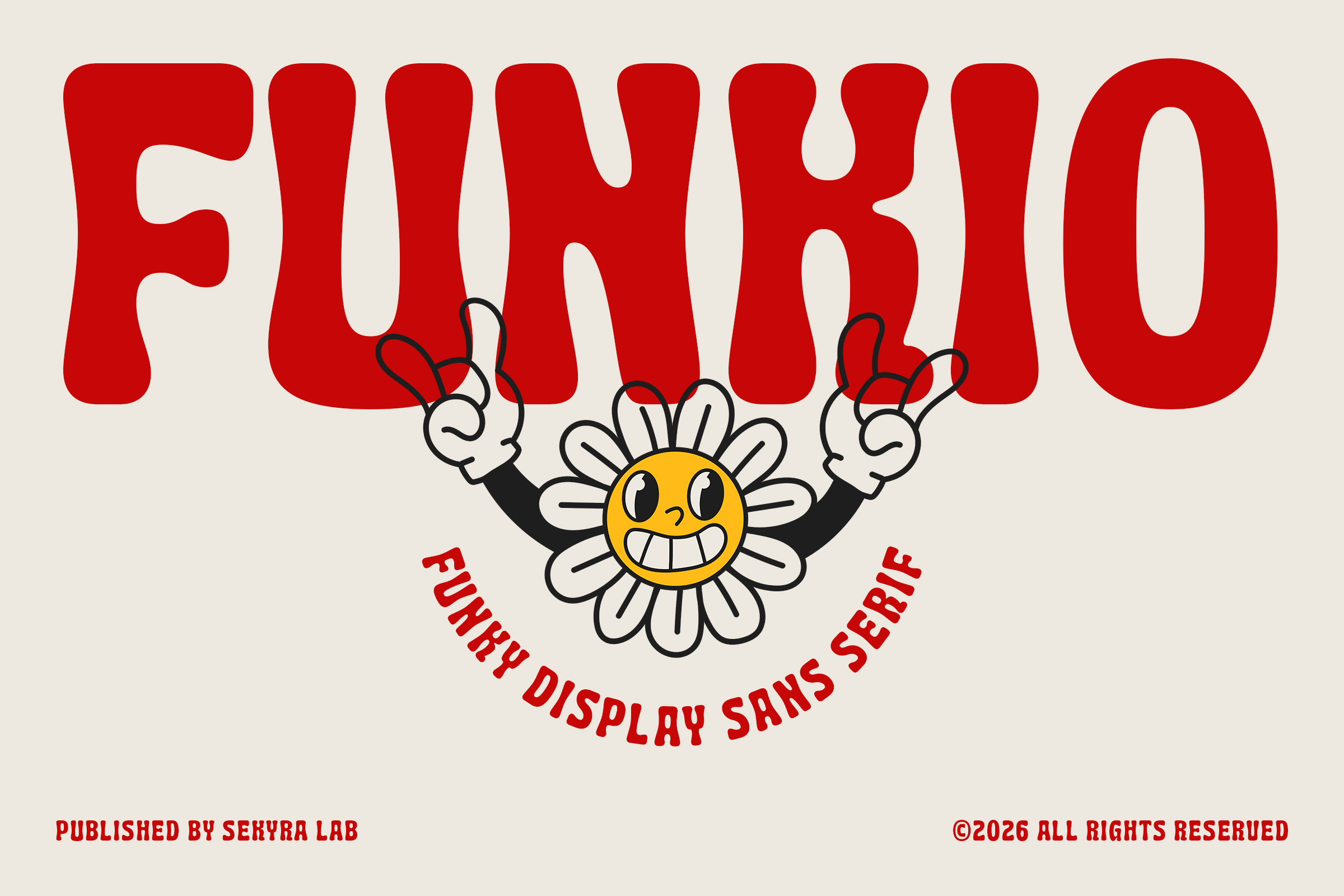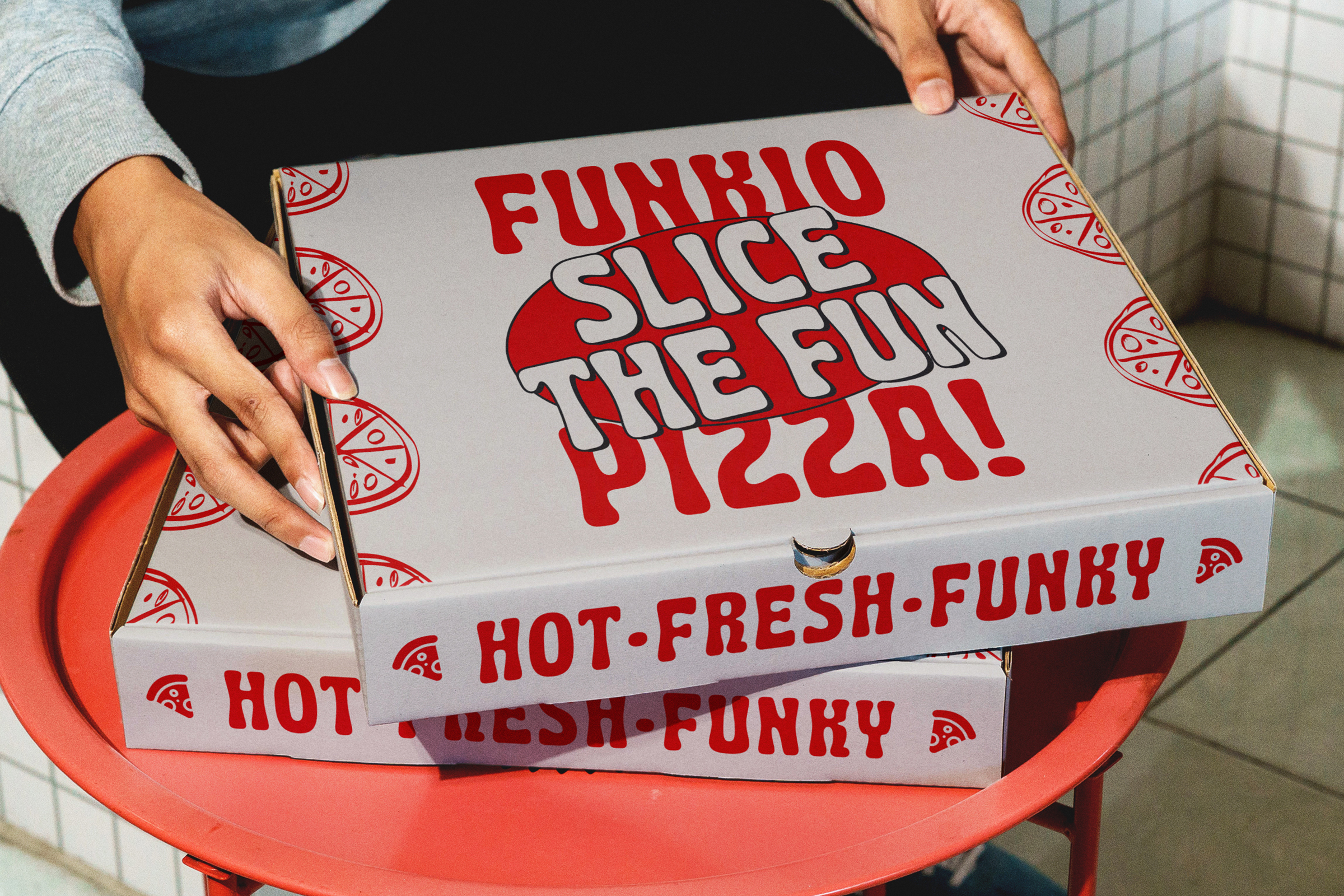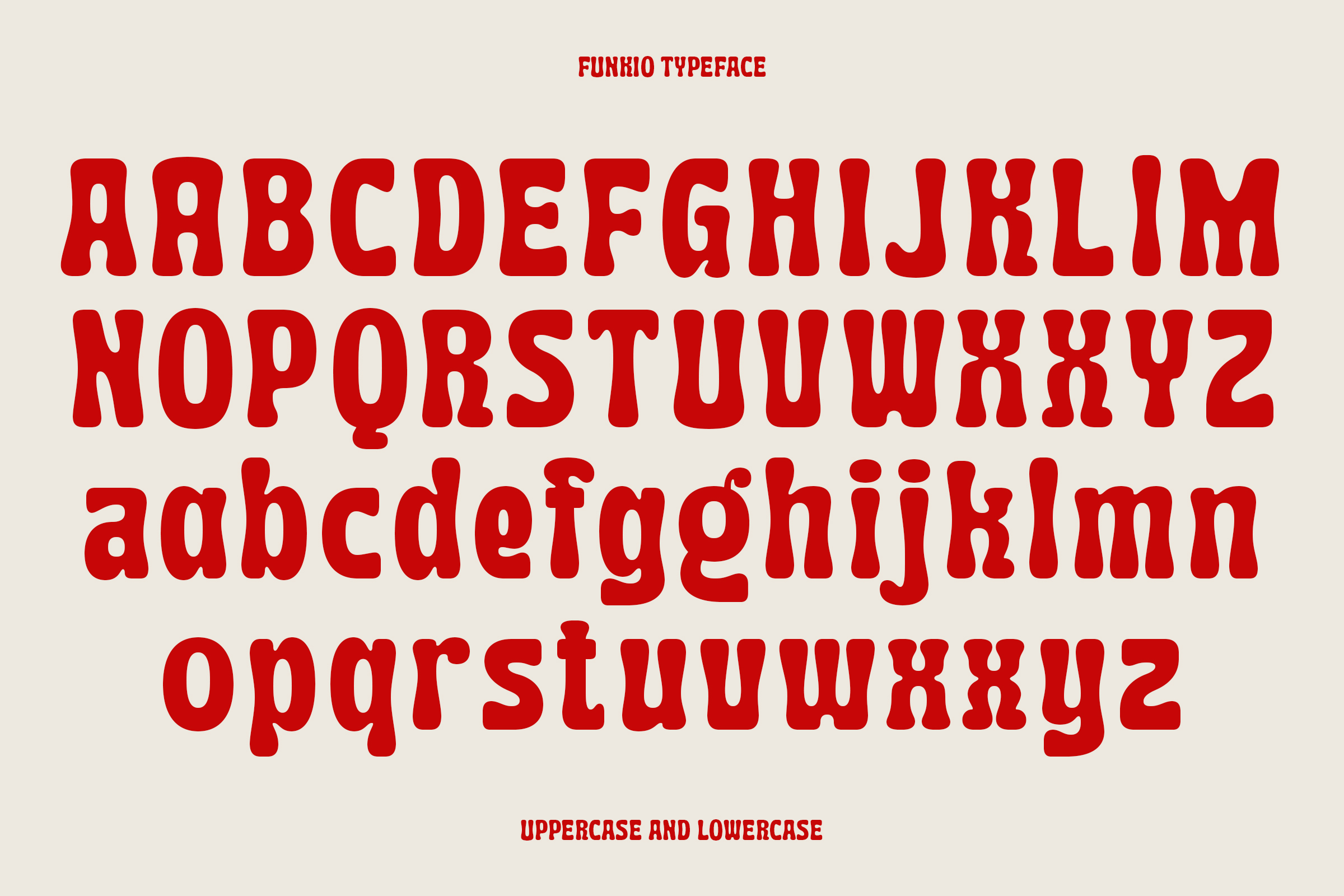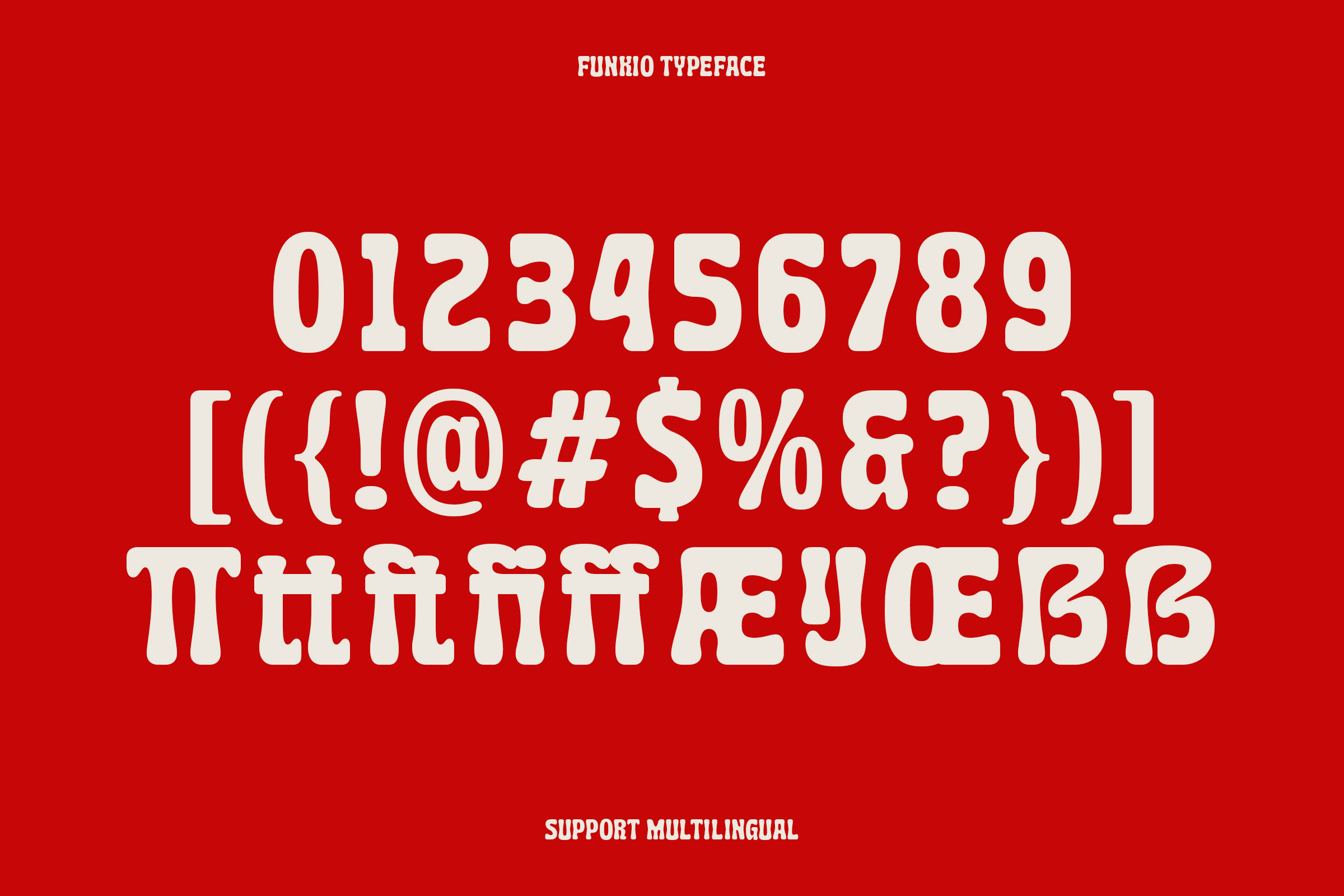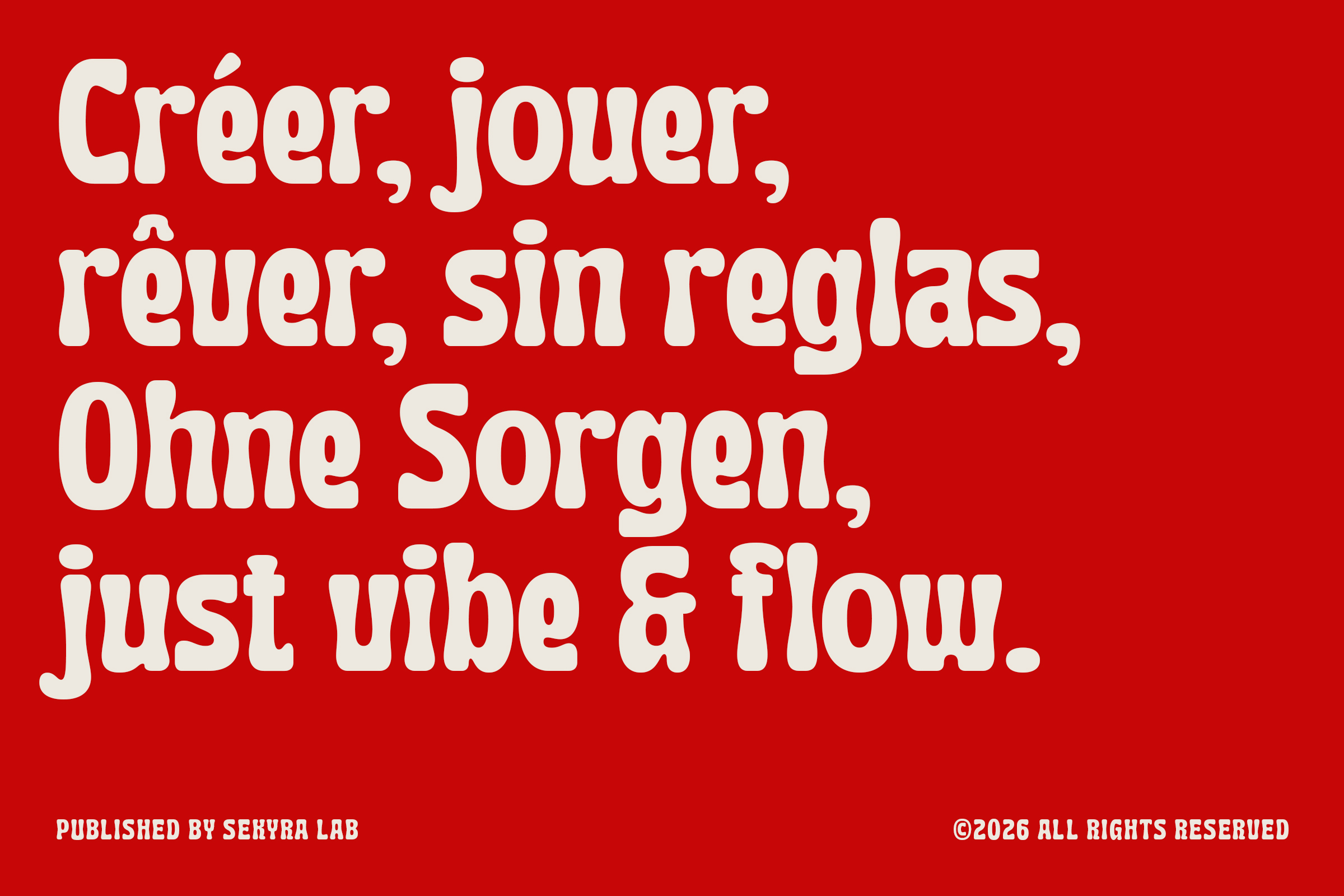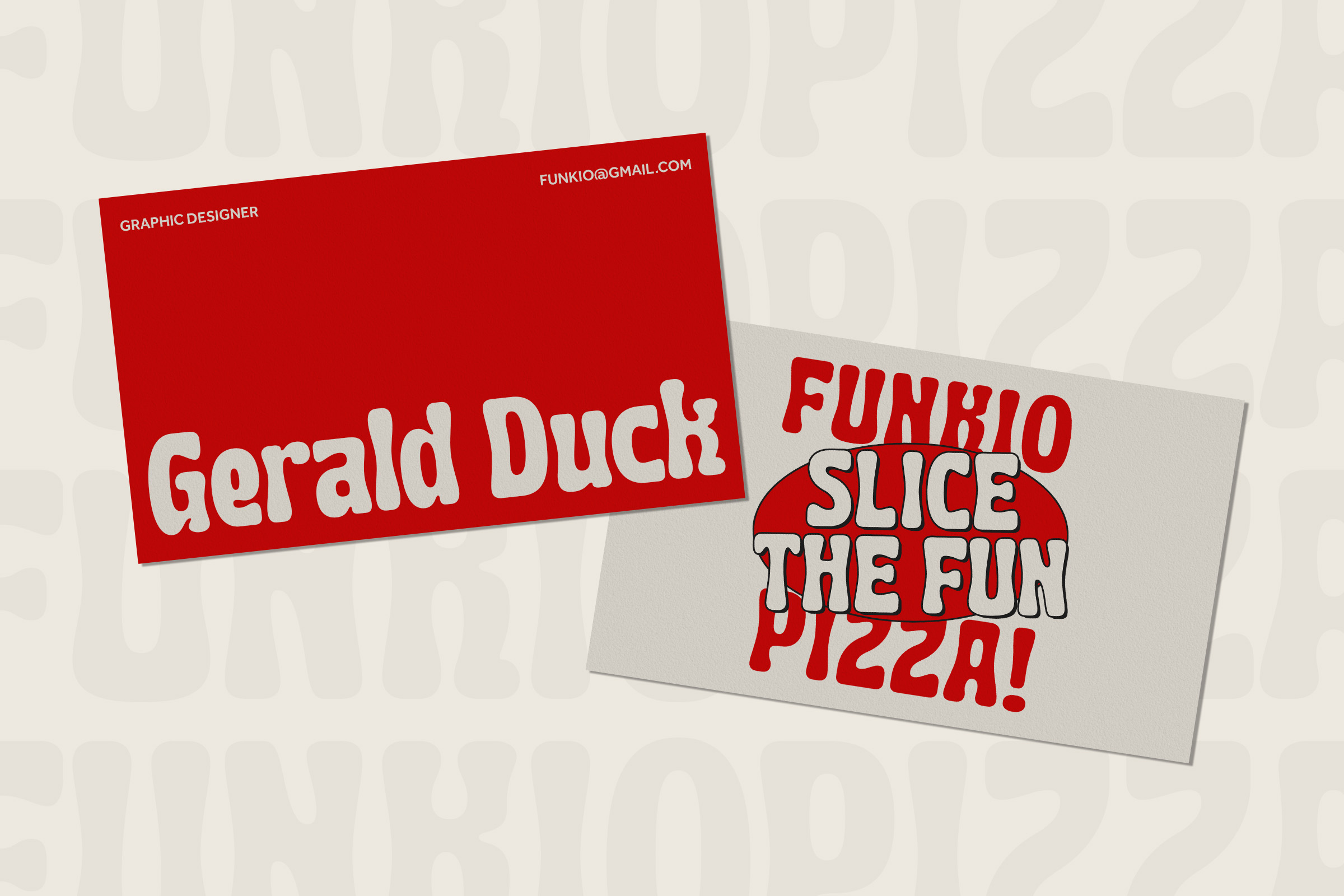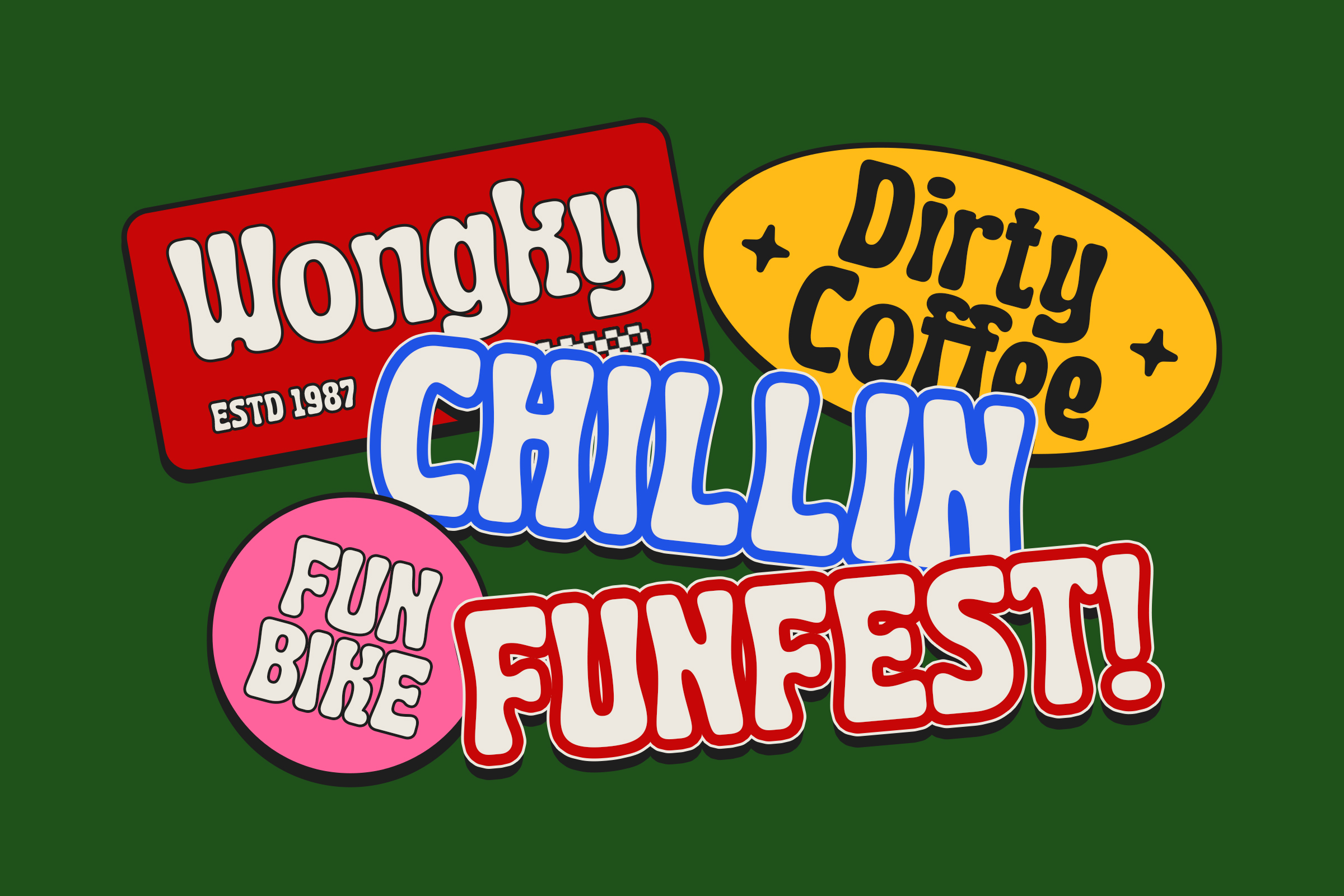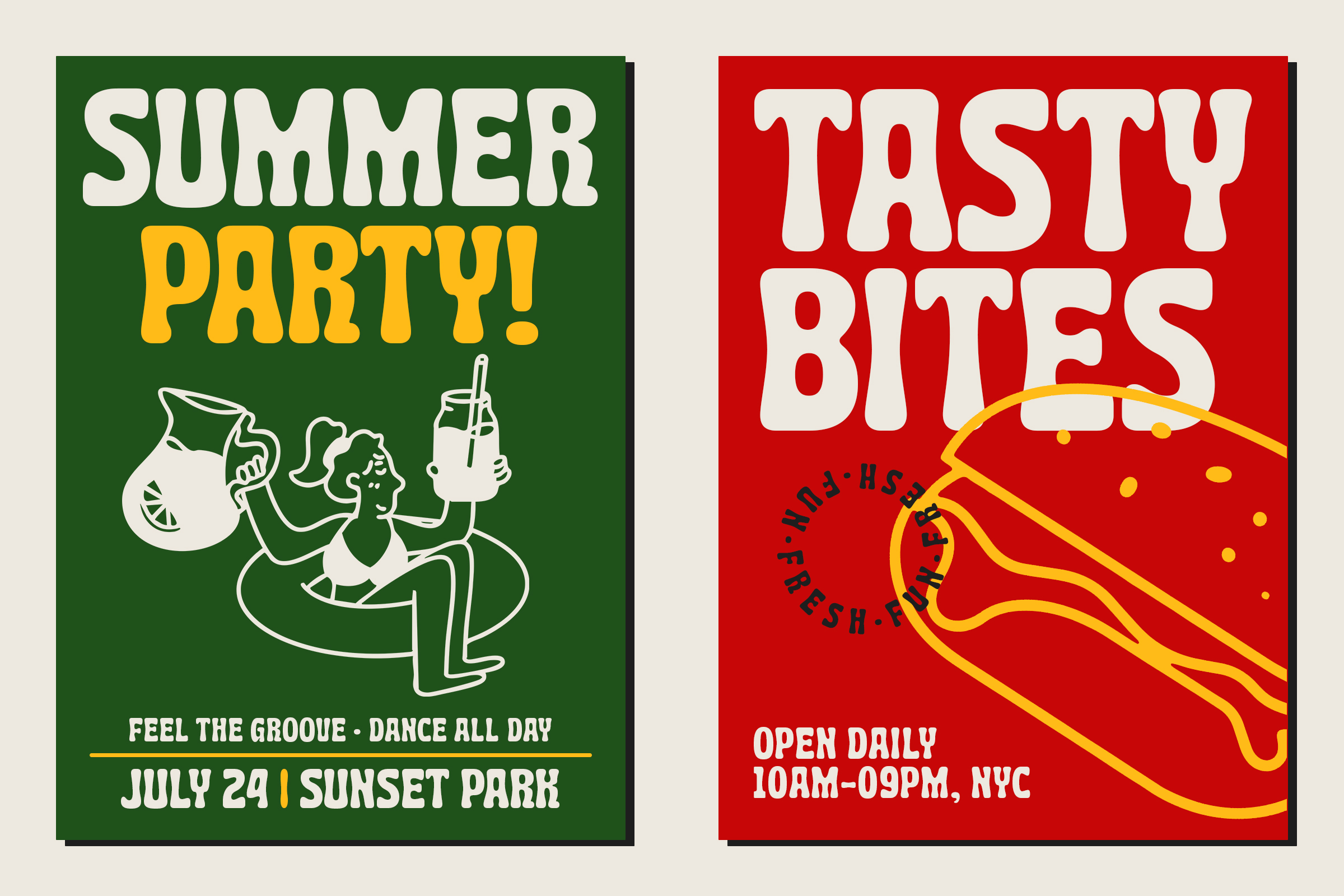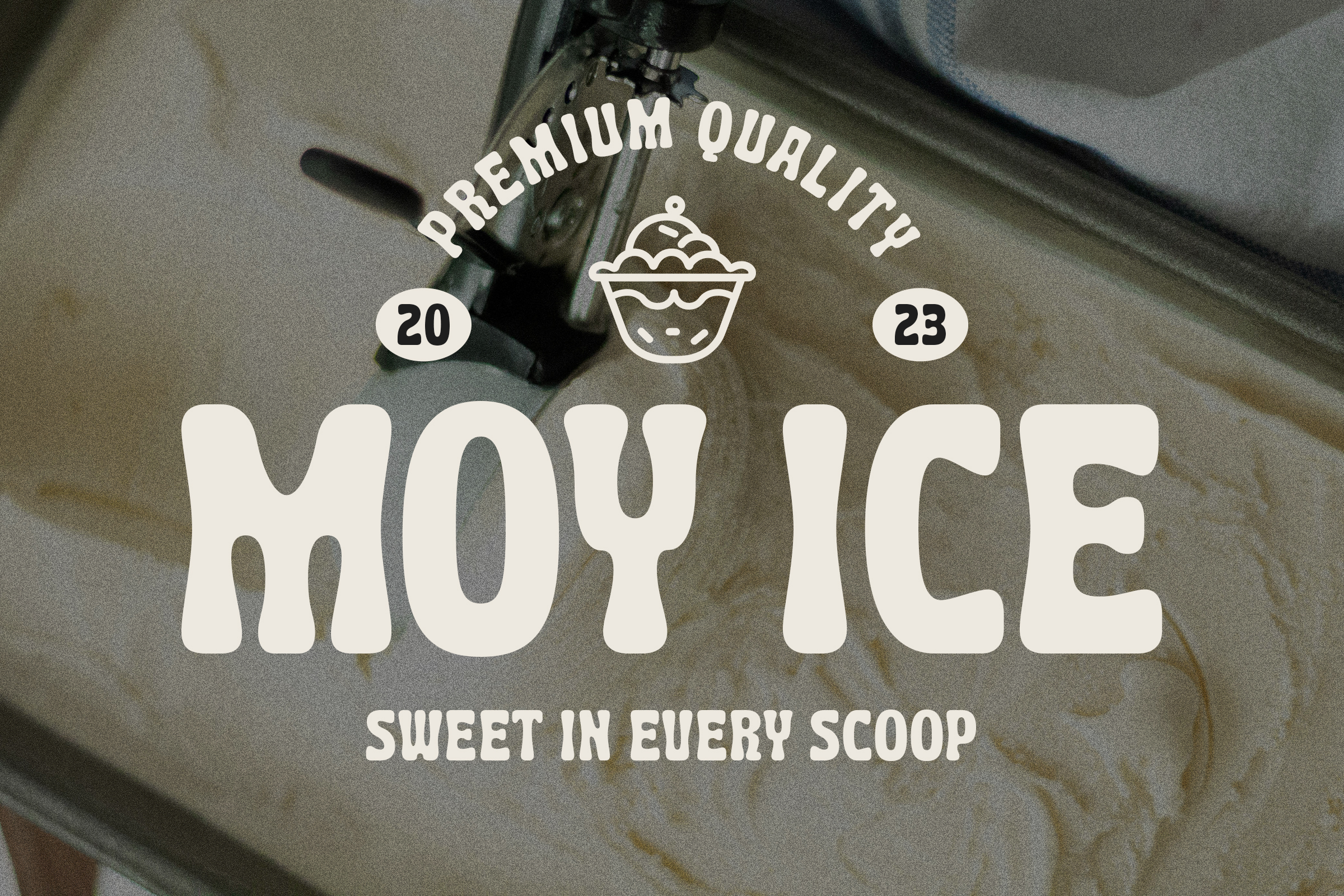
Funkio Regular Funkio Font
Funkio is a bold and playful display sans serif font designed to bring fun, energy, and personality into your designs. With its chunky shapes,..soft curves, and retro-inspired style, Funkio is perfect for projects that need a strong and cheerful visual impact.
This typeface works great for posters, packaging, branding, kids designs, food visuals, and anything that calls for a funky and expressive vibe. Its unique letterforms make every word feel lively, friendly, and full of character.
Funkio comes with complete uppercase and lowercase characters, numbers, punctuation, and multilingual support, making it versatile and ready for a wide range of creative projects.
Funkio Font